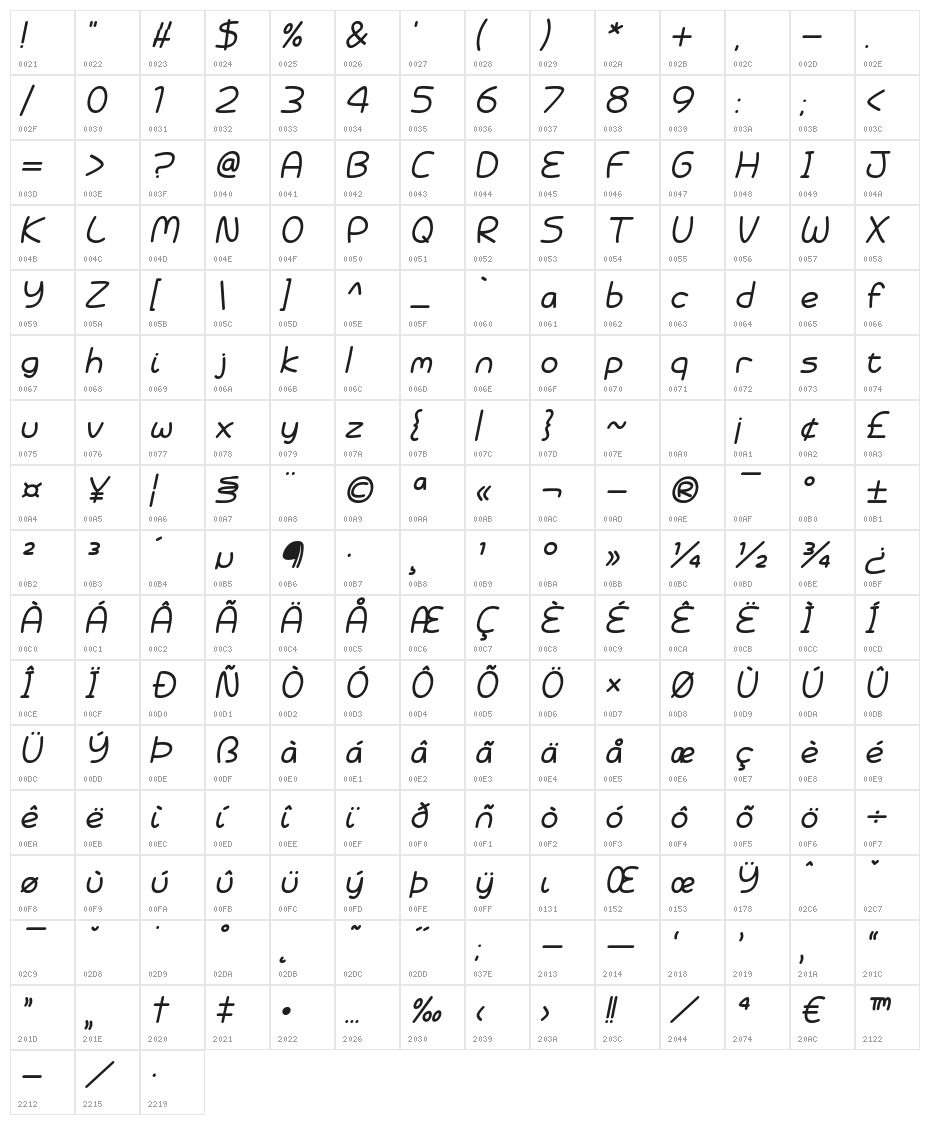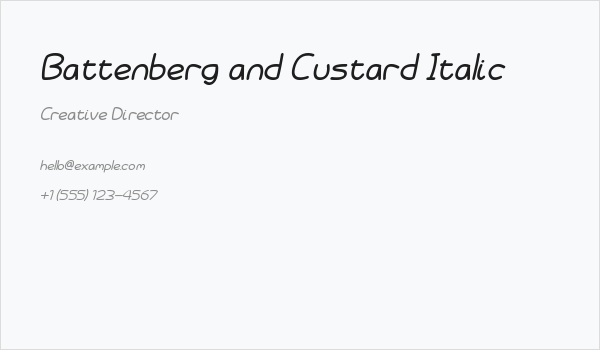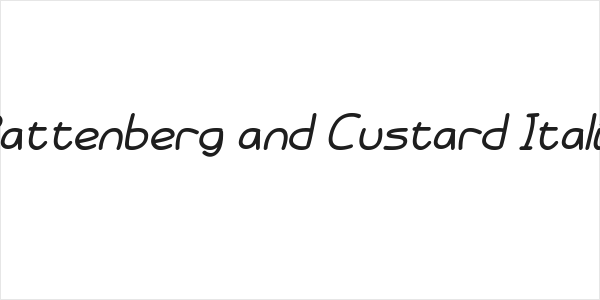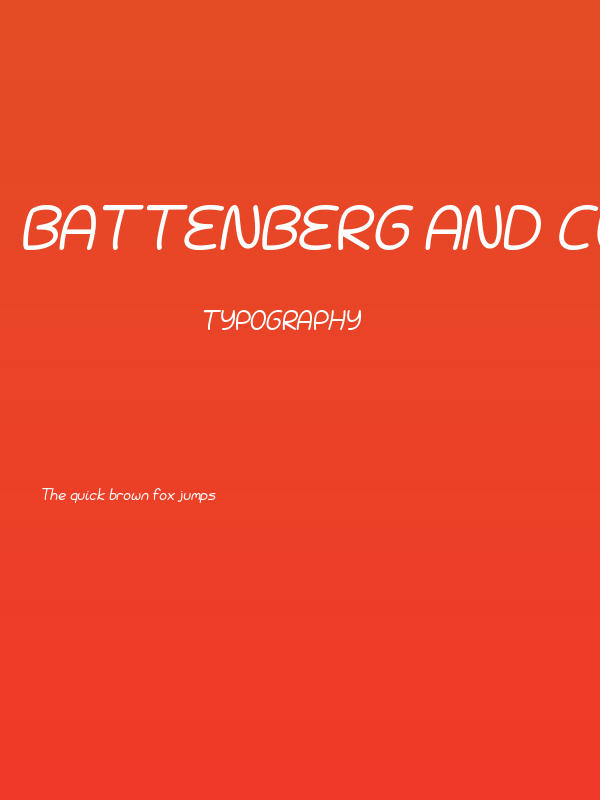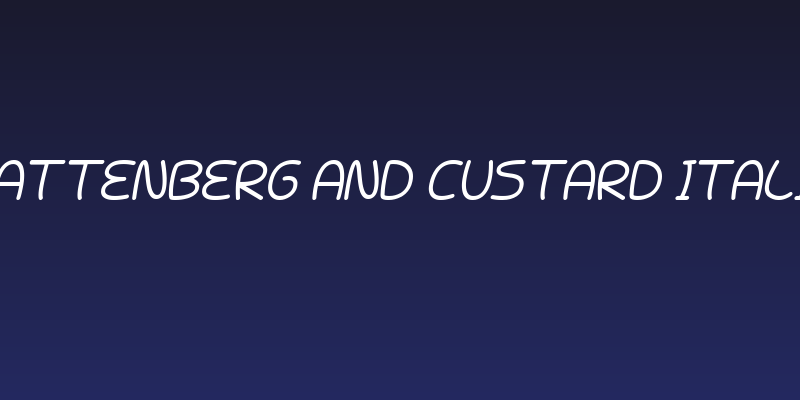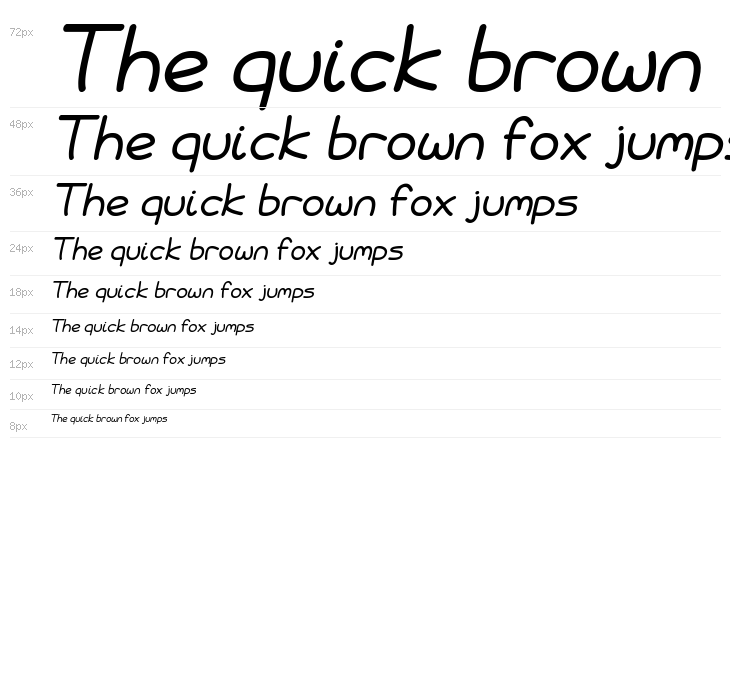
Battenberg and Custard Italic Font
Battenberg and Custard Italic Description
This font features a playful and casual script style with a slight slant, giving it an informal and friendly appearance. The characters are rounded and smooth, with consistent stroke widths that provide a uniform look. The uppercase letters maintain a cohesive flow with the lowercase, creating a harmonious balance. The numerals and special characters are designed to match the overall style, ensuring versatility across different uses. Its legibility and charm make it suitable for a variety of creative projects.
| Proposed Projects | Ideal for greeting cards, invitations, children's books, and playful branding. |